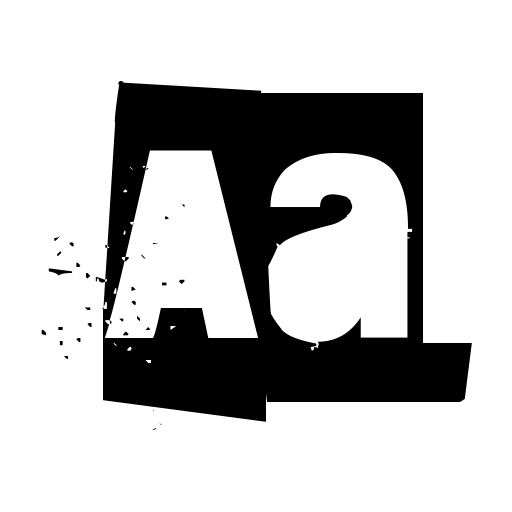
Blankblizzkrieg is a bold, blocky sans serif font featuring a distressed, grunge style with irregular black background shapes behind each letter. It has a strong, edgy personality perfect for creating attention-grabbing headlines or designs with a rebellious, urban, or punk vibe. This font works best in posters, logos, and creative branding that demands a rough, energetic look.
Blankblizzkrieg Font
About Blankblizzkrieg Font
| Font family | Blankblizzkrieg Font |
| Languages supported | Latin, Symbols, Greek, Thai |